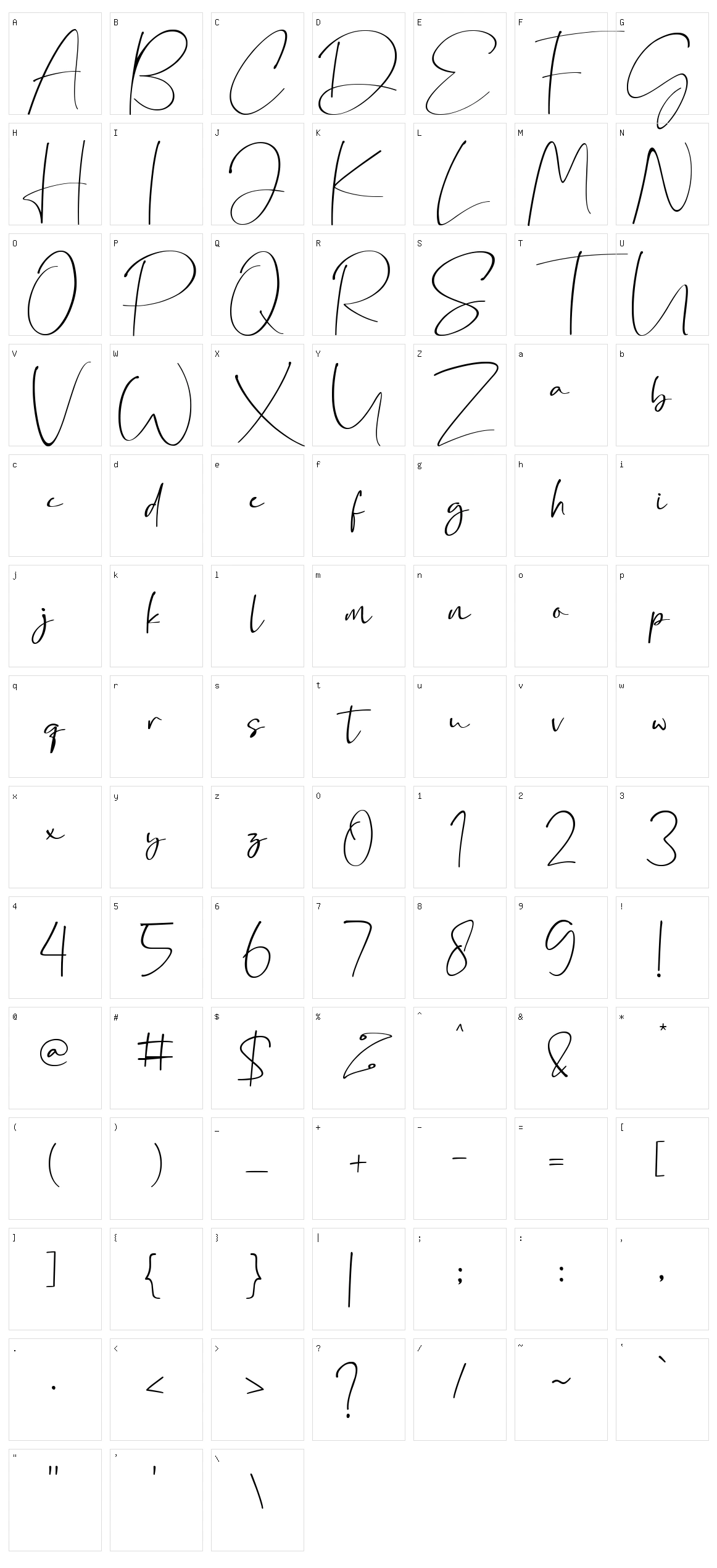
The free font Casilla is carefully designed by Dav studio, showcasing a thoughtful balance of creativity and usability and falls under the Script font style. When you download the ZIP file, it contains only 77.83 KB of font files, making it lightweight and quick to download. Please review the license details below to understand permitted usage and distribution rights. If license information is not available, we recommend using this font for personal projects only or contacting the author directly for commercial usage permissions.